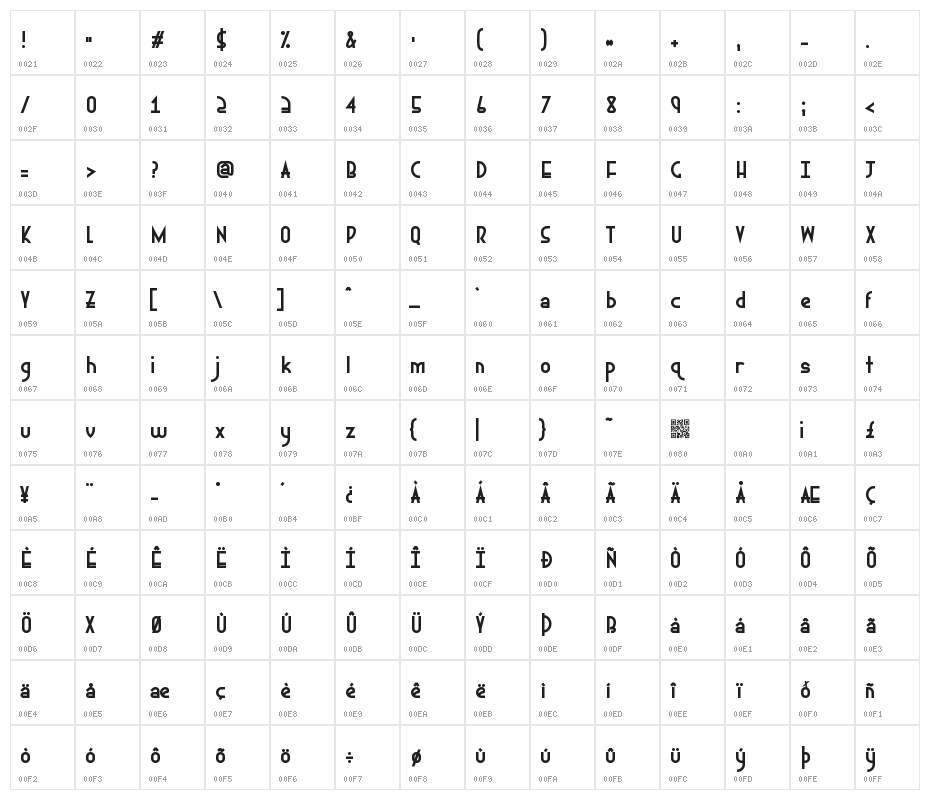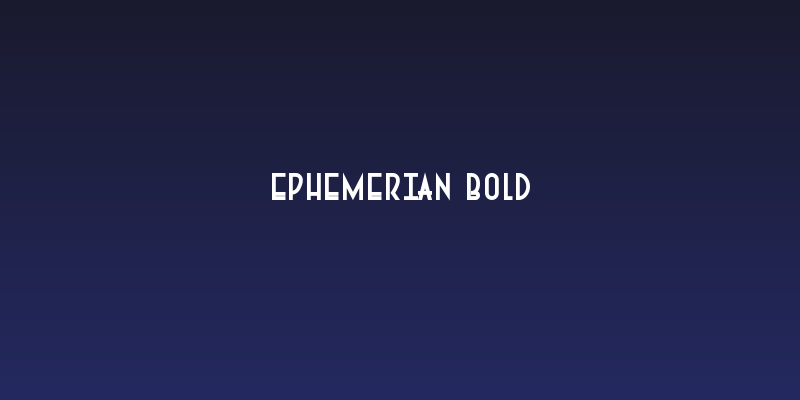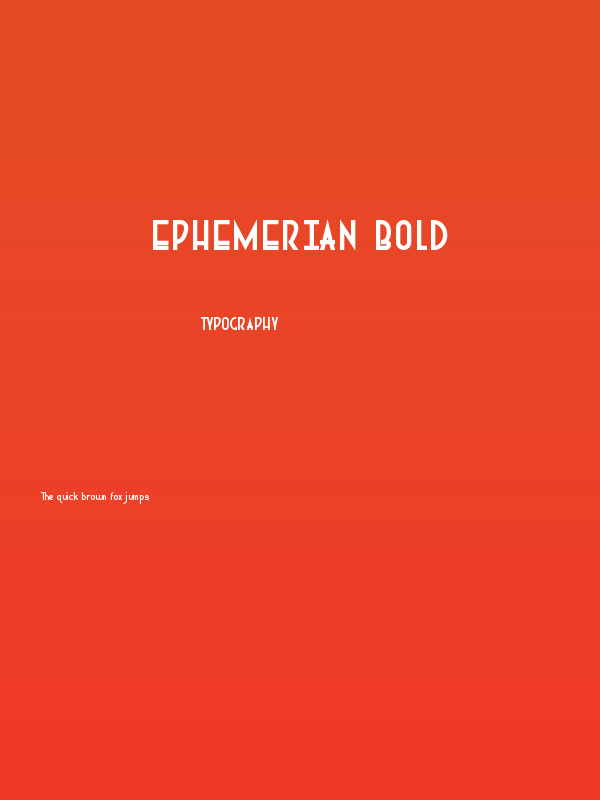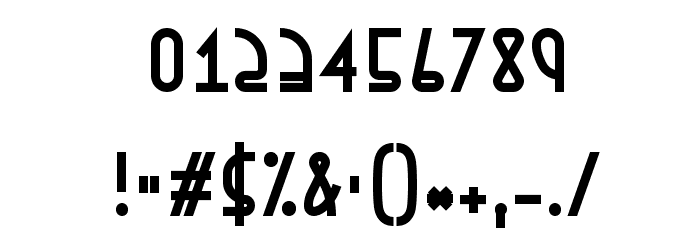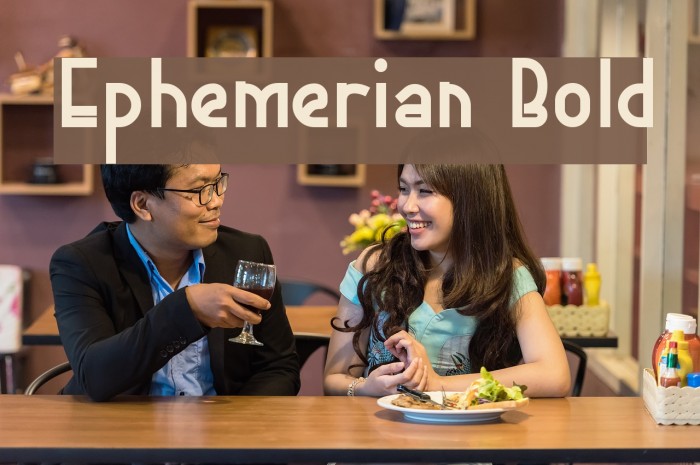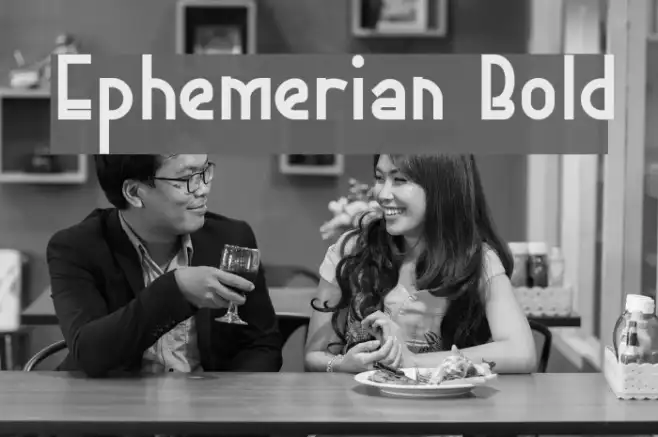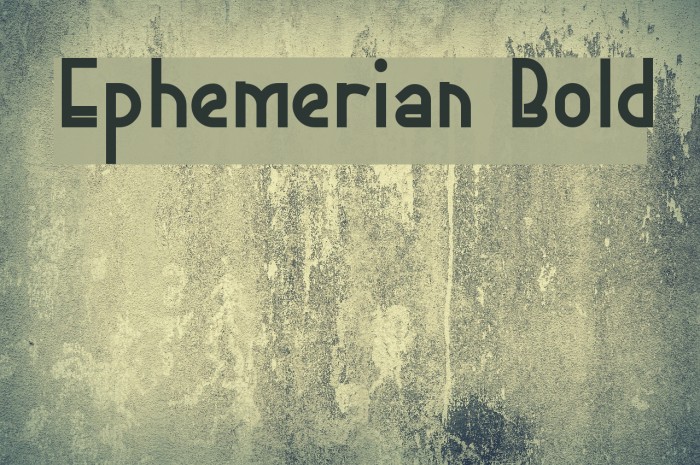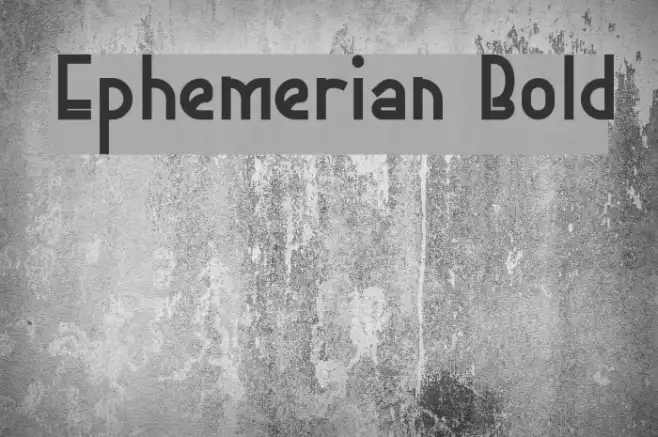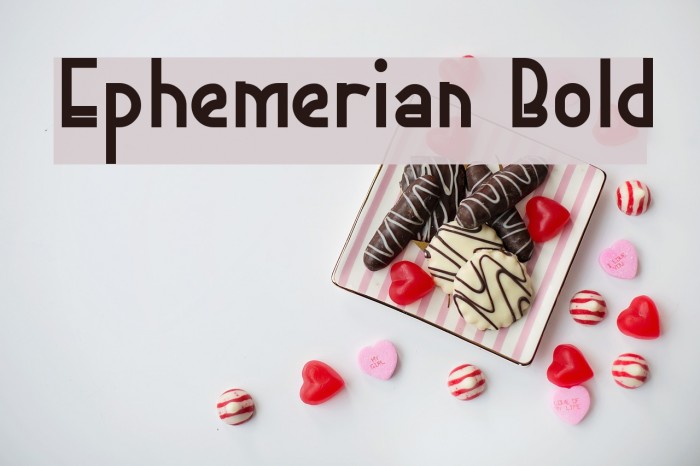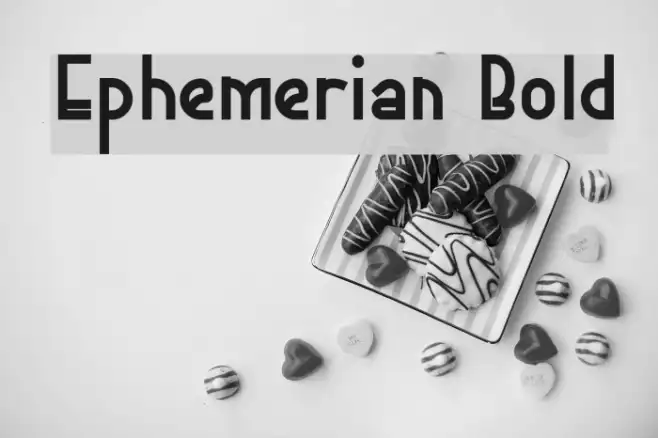
Ephemerian Bold Font
Ephemerian Bold Description
This font features a bold and geometric design with a modern flair. The uppercase letters are characterized by sharp angles and clean lines, giving them a futuristic appearance. The lowercase letters maintain a consistent style, with a slightly more rounded approach, providing a balanced contrast to the uppercase. Numbers are distinct and easily readable, with unique shapes that add to the font's overall aesthetic. Special characters are designed to match the bold and geometric theme, ensuring consistency across all glyphs. The font's bold weight and high contrast make it suitable for attention-grabbing designs.
| Proposed Projects | Ideal for branding, posters, headlines, and digital media where a modern and bold statement is needed. |